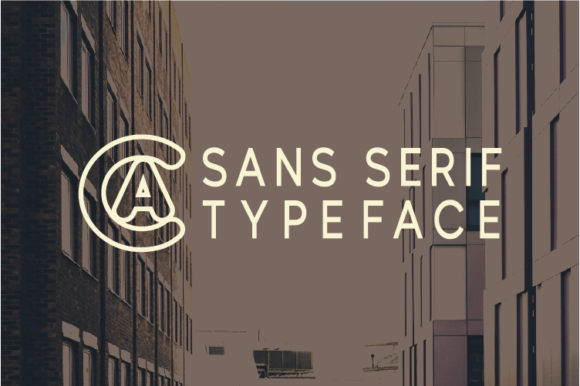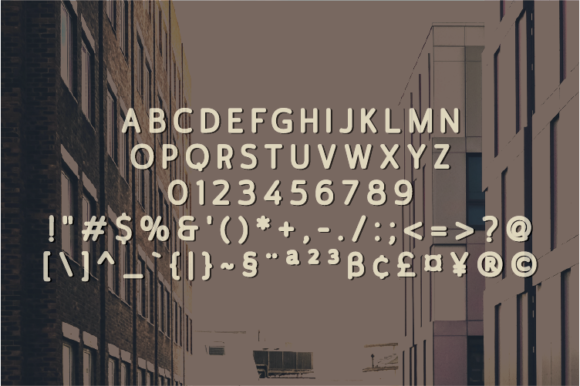
Bodtwenty Font: The Ultimate Sans Serif for Modern Designs
In the world of typography, fonts play a crucial role in making or breaking a design. A well-chosen font can elevate your project, making it more engaging, readable, and aesthetically pleasing. If you’re a designer or crafter looking for a versatile and modern sans serif font, look no further than Bodtwenty. In this article, we’ll explore the features, benefits, and uses of Bodtwenty, and why it’s poised to become your go-to font for any occasion.
What is Bodtwenty Font?
Bodtwenty is a modern, simple, and versatile sans serif font designed to adapt to a wide range of designs. Its natural style makes it an excellent choice for various projects, from digital media to print materials. With its clean lines, balanced proportions, and neutral tone, Bodtwenty exudes a sense of sophistication and elegance.
Key Features of Bodtwenty Font
- Modern and Simple Design: Bodtwenty boasts a sleek and minimalist design, making it perfect for contemporary designs that require a clean and uncluttered look.
- Versatile: This font is incredibly versatile, suitable for a broad range of projects, including logos, headings, body text, and more.
- Sans Serif: As a sans serif font, Bodtwenty offers a neutral and unadorned appearance, making it ideal for designs that require a subtle and understated look.
- Natural Style: The font’s natural style allows it to blend seamlessly with various design elements, ensuring a harmonious and balanced visual experience.
Benefits of Using Bodtwenty Font
So, why choose Bodtwenty over other fonts? Here are some benefits that make Bodtwenty an attractive option for designers and crafters:
- Improved Readability: Bodtwenty’s clear and legible design ensures that your text is easy to read, making it perfect for body text, articles, and blog posts.
- Enhanced Aesthetics: The font’s modern and simple design adds a touch of sophistication to your designs, making them more visually appealing.
- Time-Saving: With Bodtwenty, you can create professional-looking designs quickly and efficiently, saving you time and effort.
- Cross-Platform Compatibility: Bodtwenty is compatible with various platforms, including digital media, print materials, and web applications.
Use Cases for Bodtwenty Font
Bodtwenty’s versatility makes it suitable for a wide range of projects and applications. Here are some use cases to get you started:
- Logo Design: Use Bodtwenty to create a modern and sleek logo that represents your brand’s values and personality.
- Branding and Identity: Apply Bodtwenty to your brand’s visual identity, including business cards, letterheads, and packaging.
- Web Design: Utilize Bodtwenty for your website’s typography, ensuring a consistent and professional look across all pages.
- Print Materials: Use Bodtwenty for brochures, flyers, posters, and other print materials that require a clean and modern look.
In conclusion, Bodtwenty is a modern, simple, and versatile sans serif font that has the potential to become your favorite go-to font. Its natural style, clean lines, and balanced proportions make it an excellent choice for a wide range of designs. With its improved readability, enhanced aesthetics, and cross-platform compatibility, Bodtwenty is an ideal font for designers and crafters looking to elevate their projects. Whether you’re working on a logo, branding, web design, or print materials, Bodtwenty is sure to deliver a professional and visually appealing result.